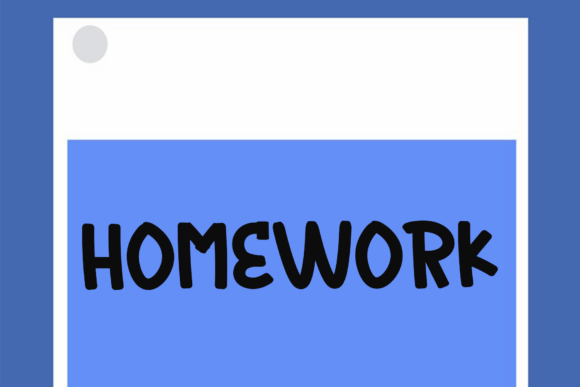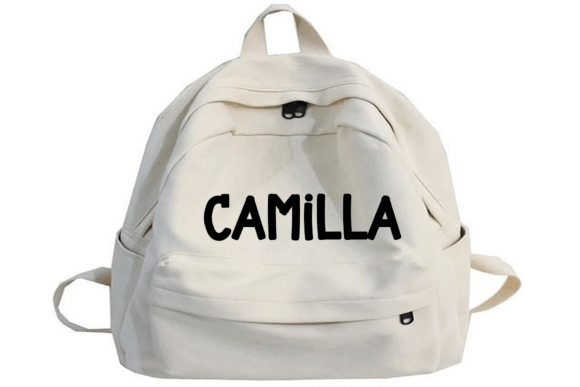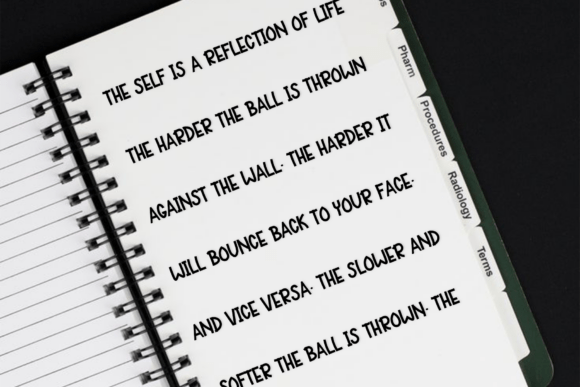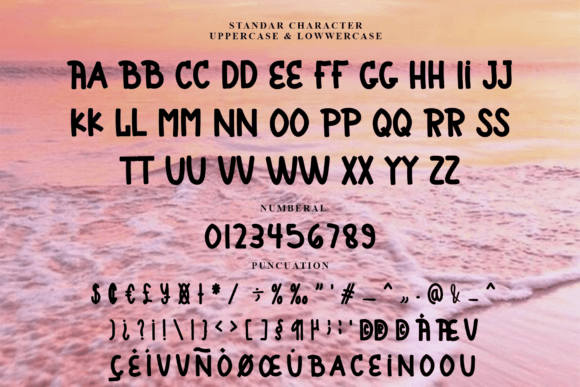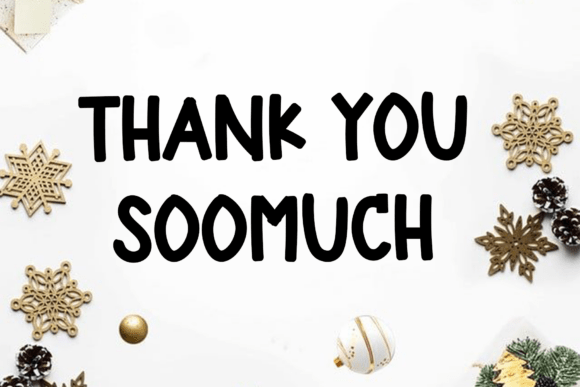
Daisy Font: The Perfect Handwritten Font for Your Design Needs
Are you looking for a font that can add a personal touch to your designs? Look no further than the Daisy Font. This casual handwritten font is perfect for designers and crafters who want to create unique and eye-catching designs that radiate warmth and personality.
What is Daisy Font?
Daisy Font is a beautiful, handwritten font that features smooth strokes, natural curves, and easy-flowing letterforms. It has a modern, approachable feel that captures the charm of authentic handwriting. The font is designed to be versatile and can be used for a variety of design projects, including quotes, invitations, branding, and social media posts.
Key Features of Daisy Font
- Smooth Strokes: The font features smooth strokes that give it a natural and effortless look.
- Natural Curves: The curves in the font are organic and fluid, making it perfect for creating designs that look like they were written by hand.
- Easy-Flowing Letterforms: The letterforms in the font are designed to flow easily into each other, creating a sense of movement and fluidity.
- Modern and Approachable: The font has a modern feel that’s approachable and friendly, making it perfect for designs that need to connect with the audience.
Why Use Daisy Font?
There are many reasons why designers and crafters love using Daisy Font. Here are a few:
- Adds a Personal Touch: The font adds a personal and friendly touch to any design, making it perfect for projects that need to connect with the audience.
- Versatile: The font is versatile and can be used for a variety of design projects, from quotes and invitations to branding and social media posts.
- Easy to Read: The font is designed to be easy to read, making it perfect for designs that need to communicate a message clearly.
- Charming: The font has a charming and authentic feel that makes it perfect for designs that need to stand out.
Uses for Daisy Font
Daisy Font is perfect for a variety of design projects, including:
- Quotes: Use the font to create inspiring and motivational quotes that will resonate with your audience.
- Invitations: The font is perfect for creating invitations for weddings, parties, and other special events.
- Branding: Use the font to create a unique and memorable brand identity that will set you apart from the competition.
- Social Media Posts: The font is perfect for creating social media posts that need to connect with your audience and stand out in a crowded feed.
Tips for Using Daisy Font
Here are a few tips for using Daisy Font in your designs:
- Use it with Images: The font looks great when paired with images, especially those with a natural or organic feel.
- Experiment with Colors: The font looks great in a variety of colors, so don’t be afraid to experiment and find the perfect color for your design.
- Keep it Simple: The font is best used in simple designs that allow the font to shine.
- Play with Size: The font looks great in a variety of sizes, so don’t be afraid to experiment and find the perfect size for your design.
Daisy Font is a beautiful, handwritten font that’s perfect for designers and crafters who want to add a personal touch to their designs. With its smooth strokes, natural curves, and easy-flowing letterforms, it’s the perfect font for creating unique and eye-catching designs. Whether you’re creating quotes, invitations, branding, or social media posts, Daisy Font is the perfect choice.